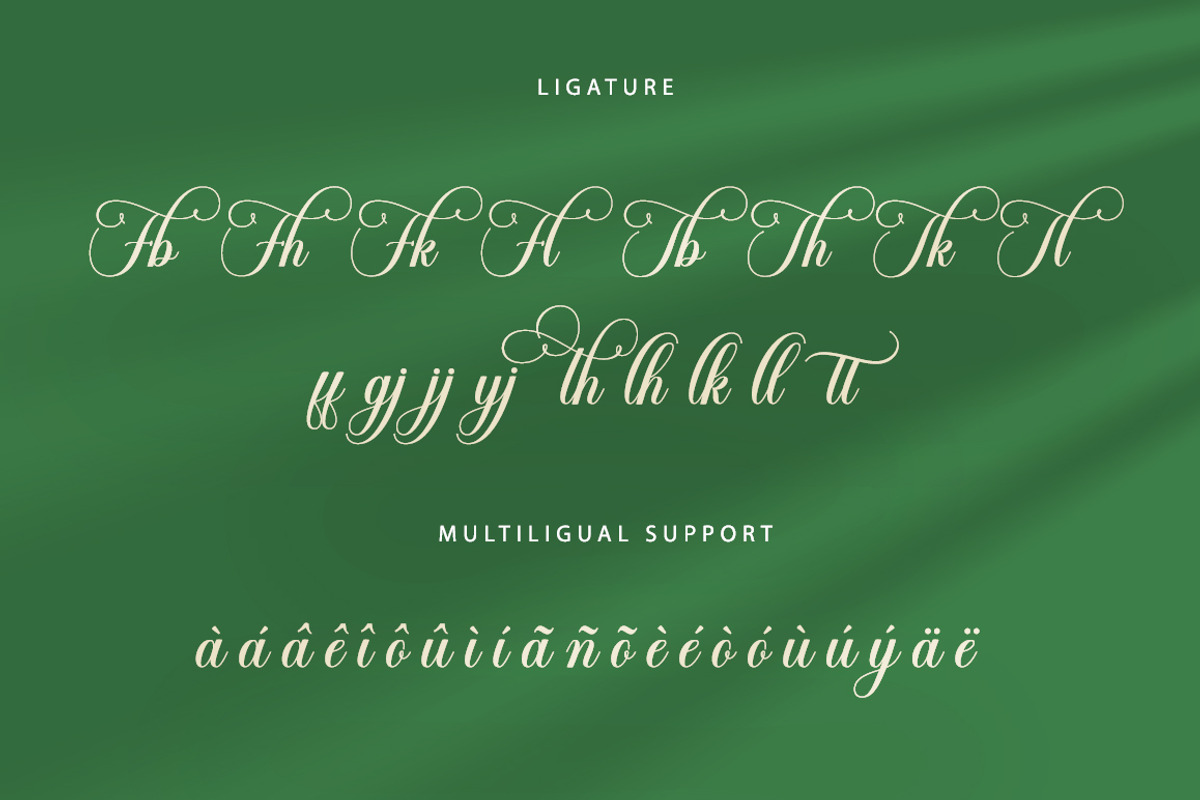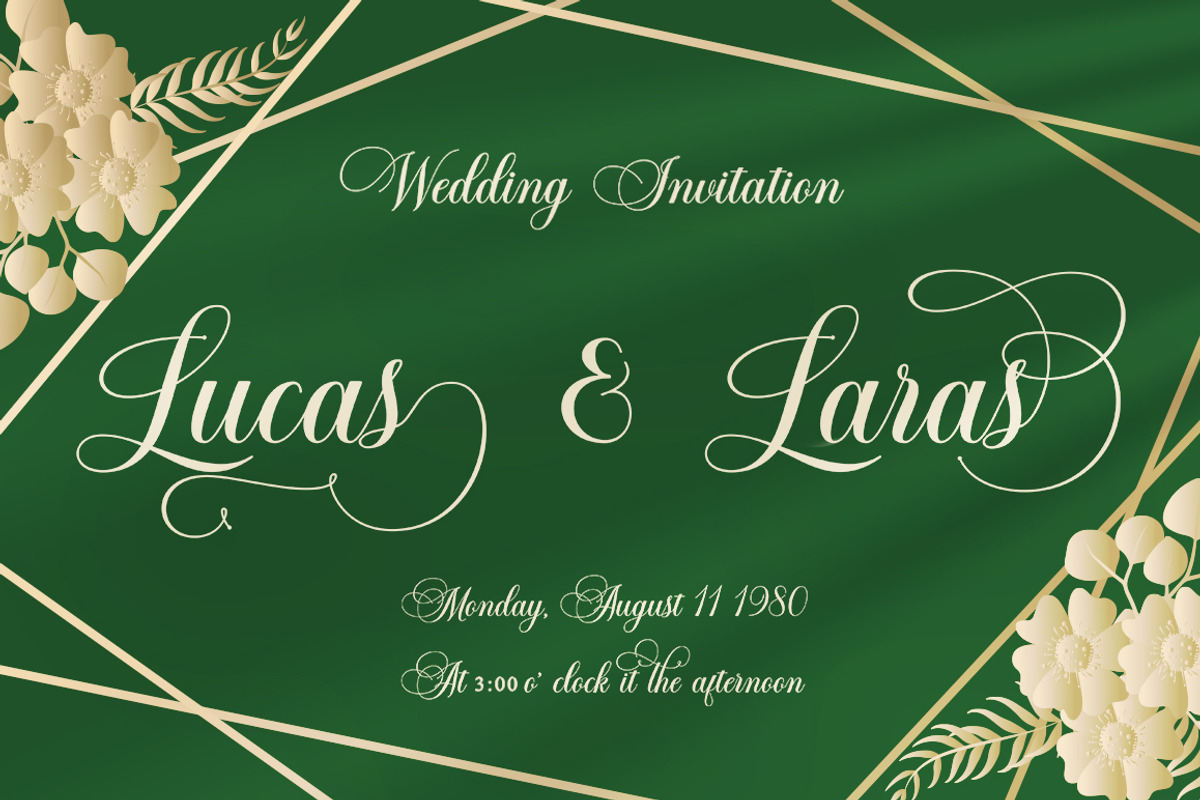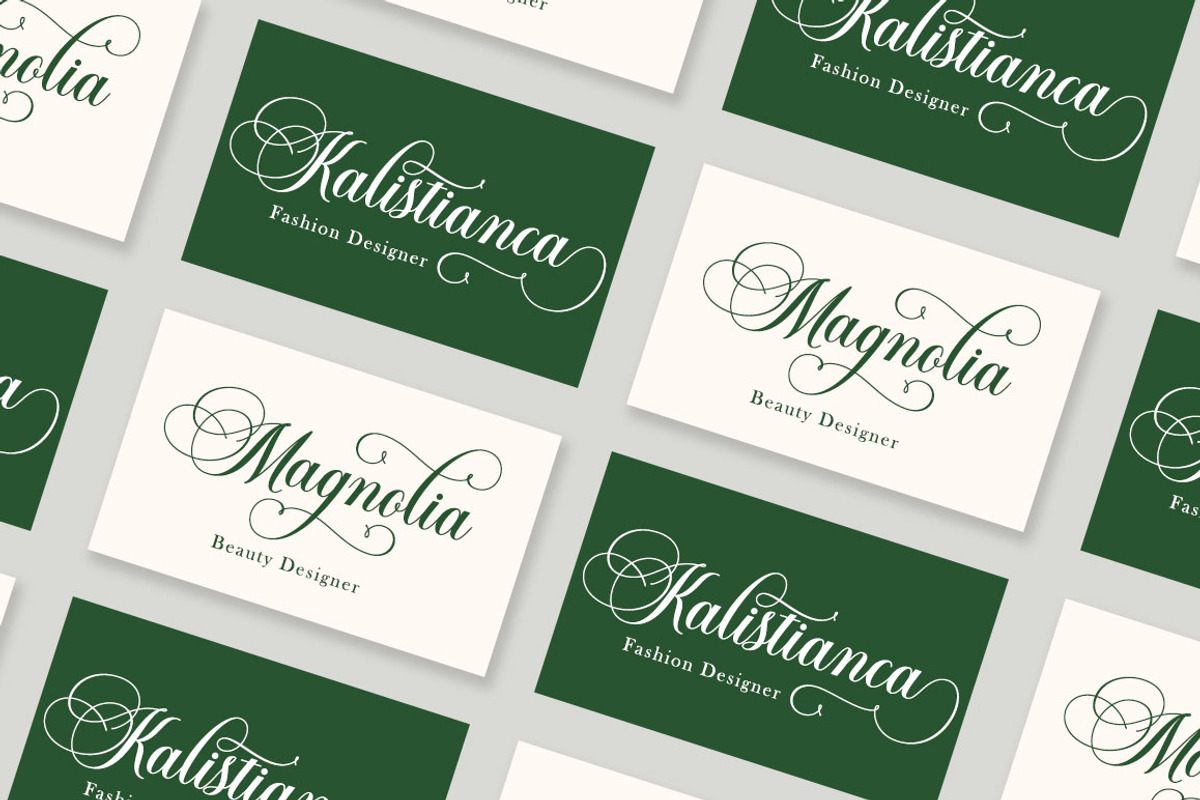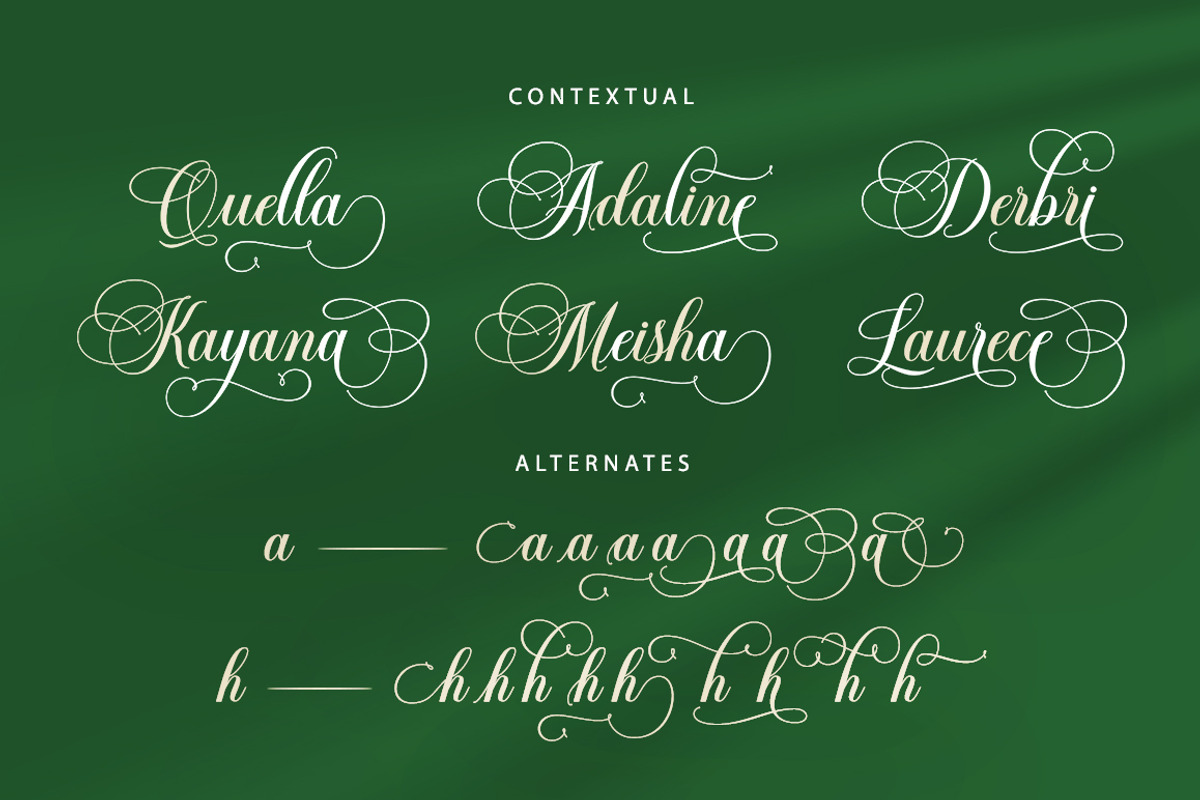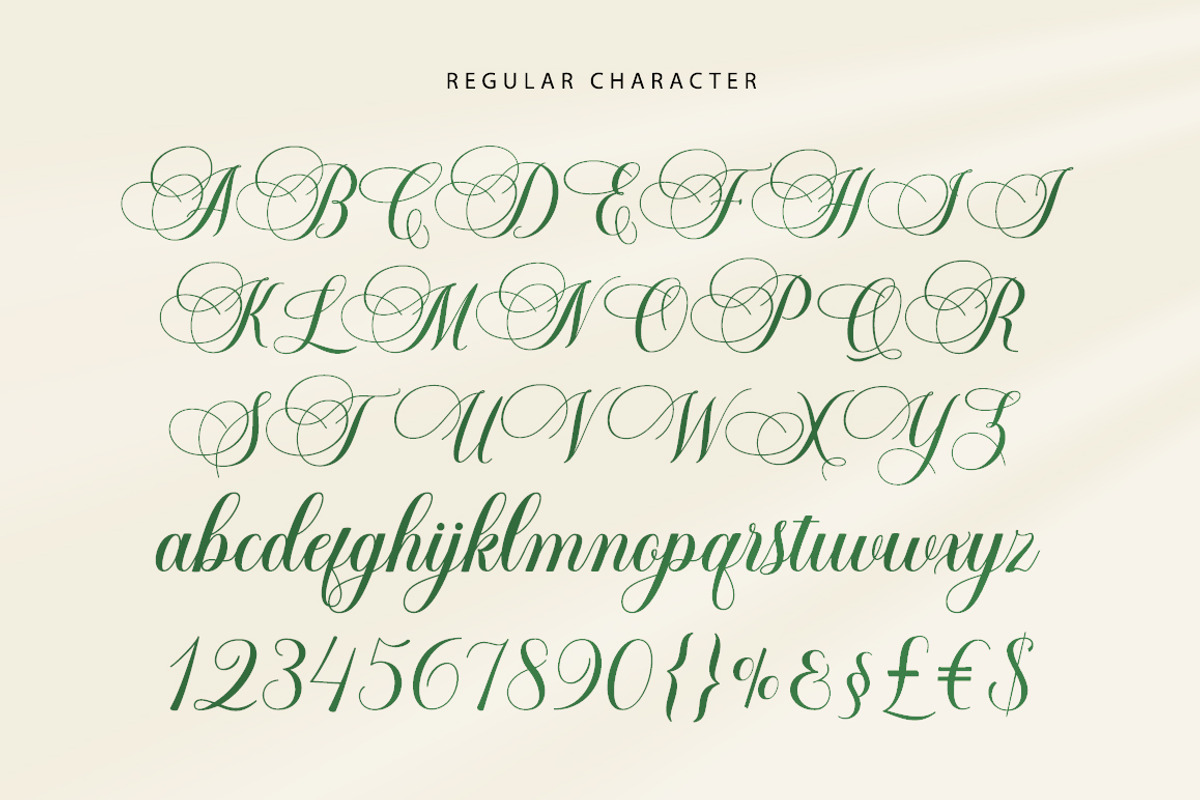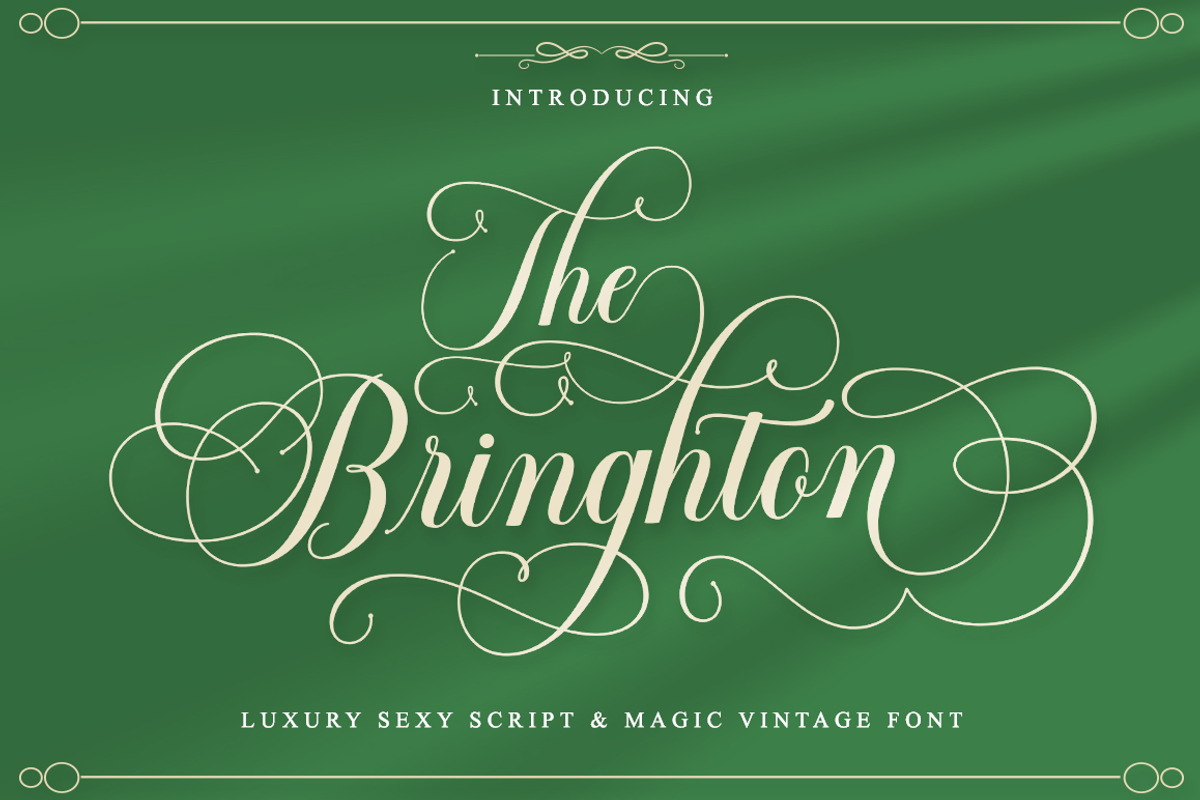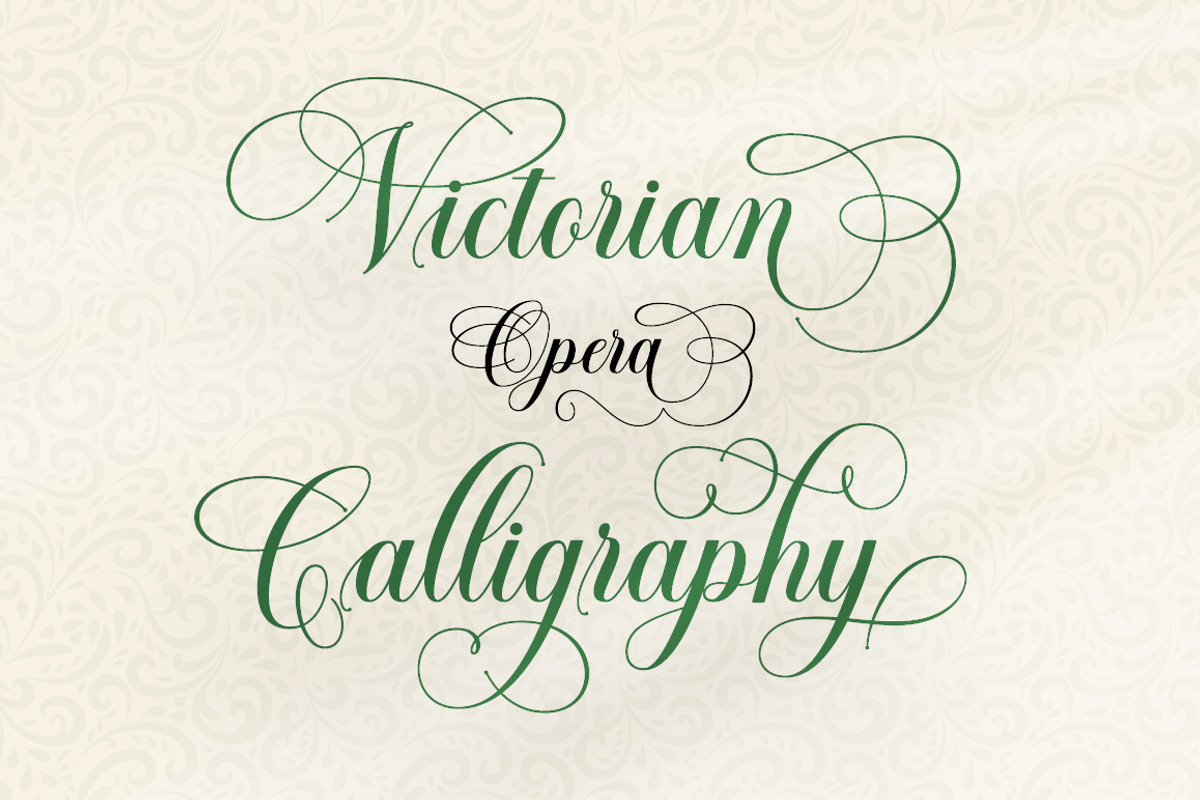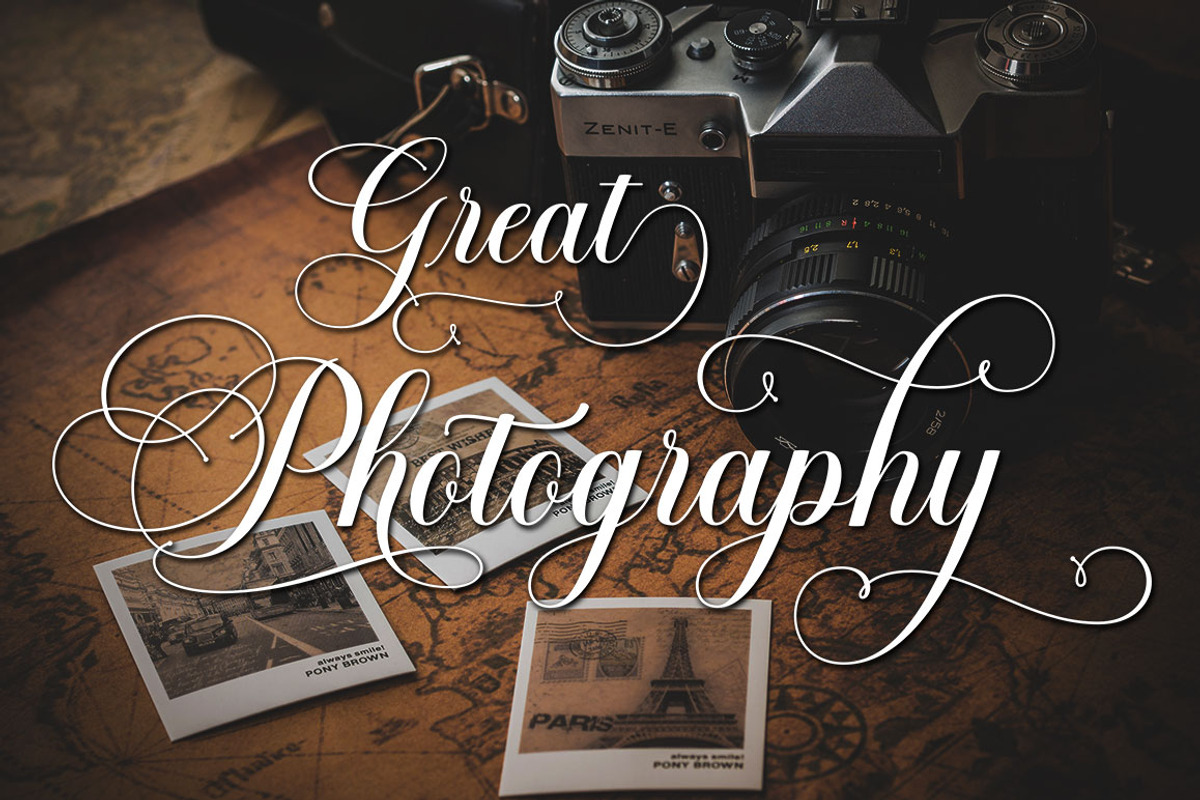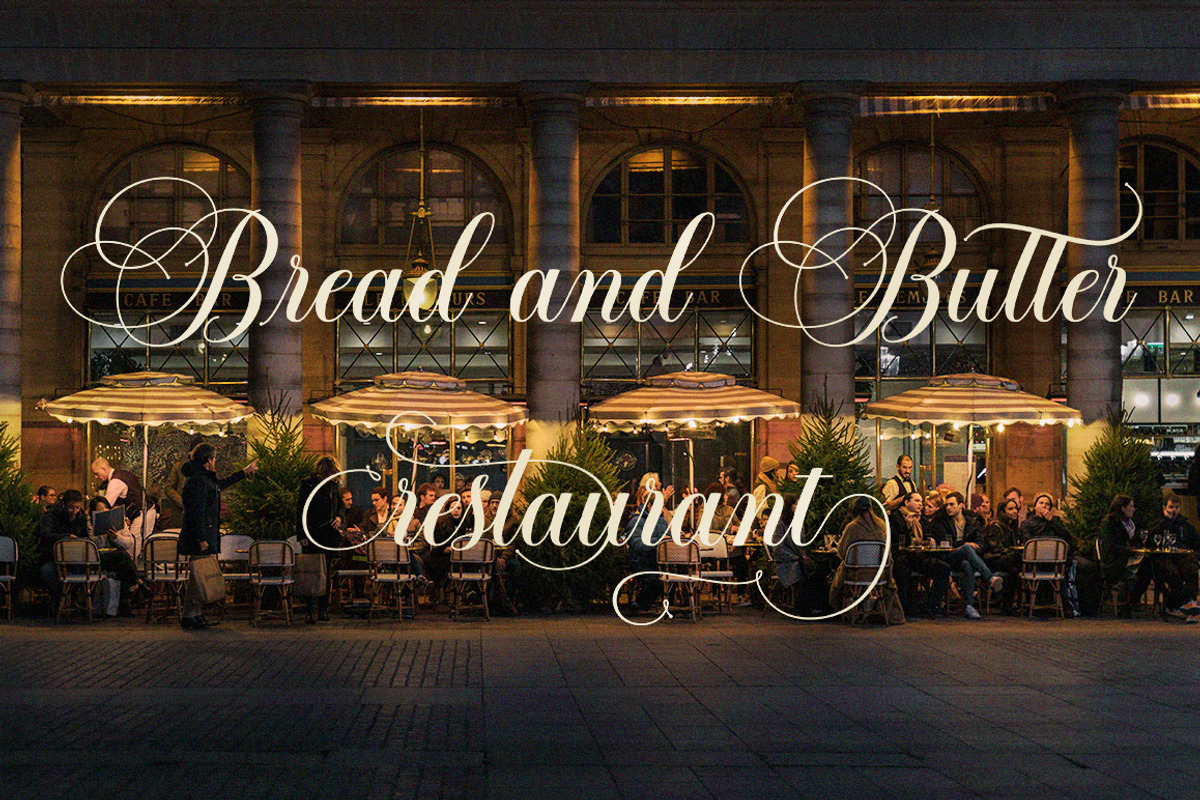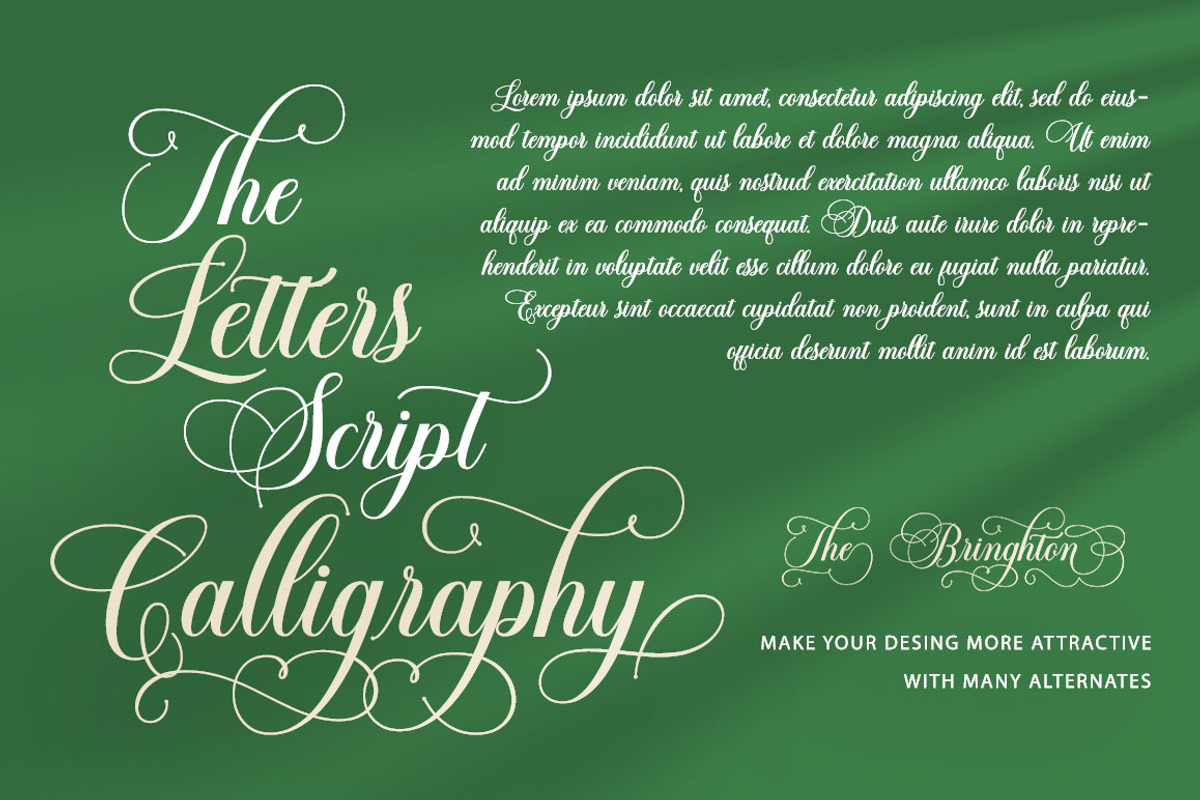
The Bringhton
The Bringhton Script
This is a Vintage calligraphy script font that comes with beautiful alternative characters. copper plate mixed calligraphy with handttering style. Designed to convey stylish elegance. The Bringhton Script has a smooth, clean, feminine, sensual, glamorous, simple, and easy to read typeface.
The Bringhton Script comes with a Clean and Aged version, beautiful upper and lower case, binding and favored by many finishes. It has Multilingual support (West European characters) and works with the following languages: English, Danish, Dutch, Estonian, Finnish, French, German, Hungarian, Icelandic, Italian, Norwegian, Polish, Portuguese, Spanish, Swedish.
In my example I show how this script can be used. It's perfect for logos, wedding invitations, alcohol labels, romantic cards and more.